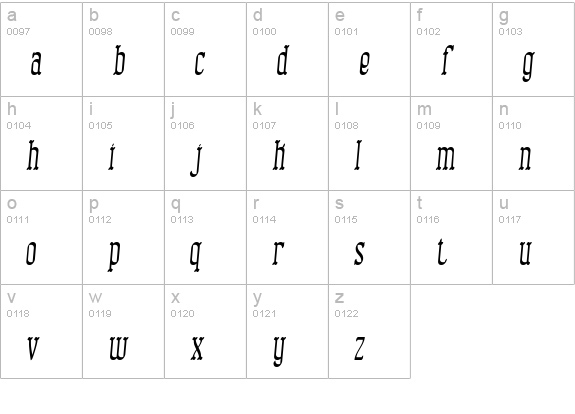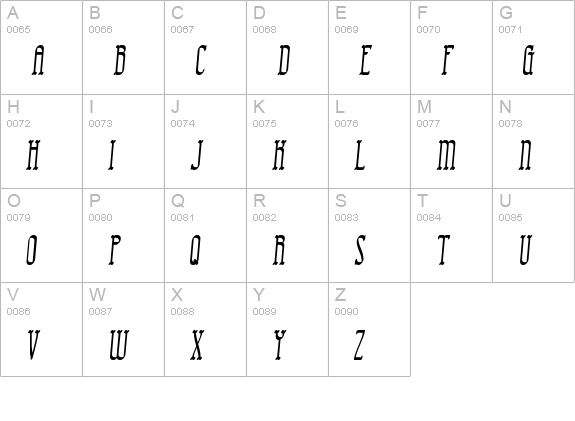
Combustion II BRK Font Details
Combustion II BRK font is a modern and edgy typeface that exudes a sense of energy and dynamism. Its sharp angles and bold strokes make it perfect for creating eye-catching designs and headlines that demand attention. The font's unique style gives a futuristic and industrial feel, making it ideal for projects that require a cutting-edge look. Combustion II BRK font is versatile and can be used for a variety of design applications, from posters and flyers to logos and branding. Its sleek and contemporary design will add a touch of sophistication to any project. The best part is that Combustion II BRK font is available for free download at FontsMarket.com. This means you can easily access this stylish and impactful font without any cost, making it a valuable addition to your design toolkit. Don't miss out on the opportunity to enhance your projects with the striking and modern aesthetic of Combustion II BRK font.